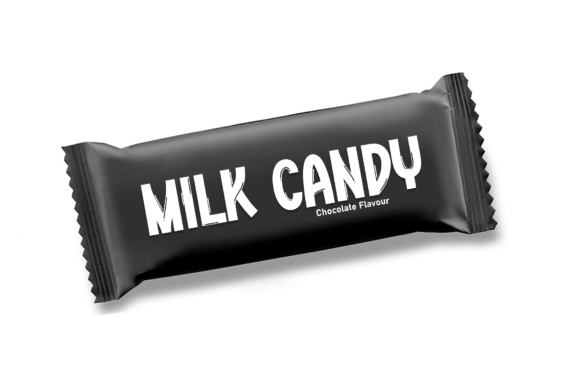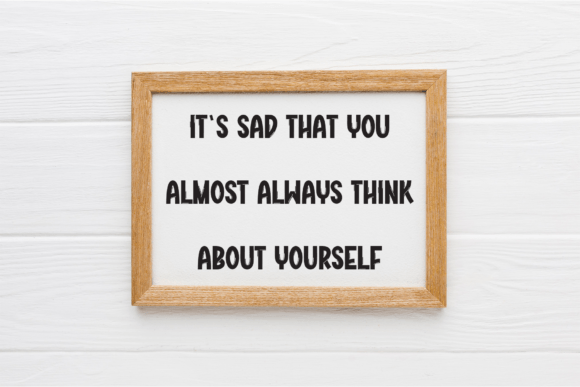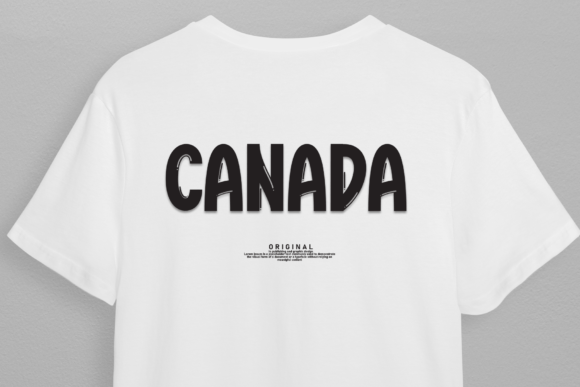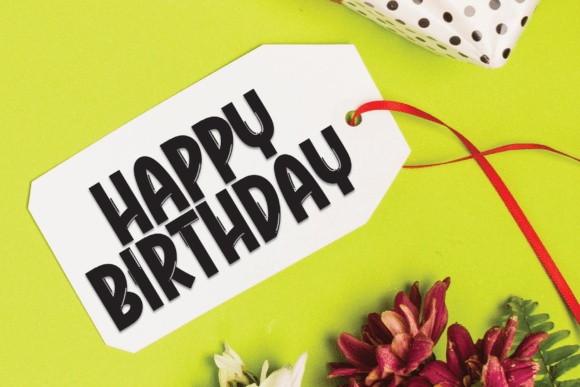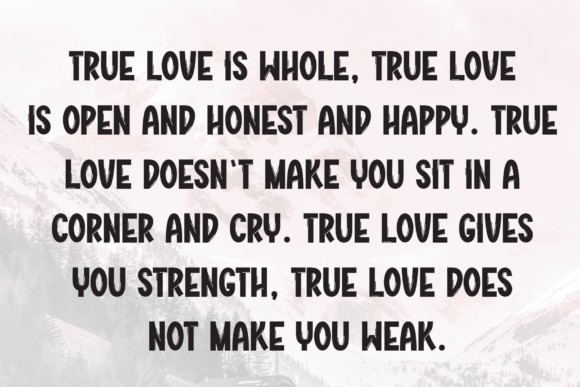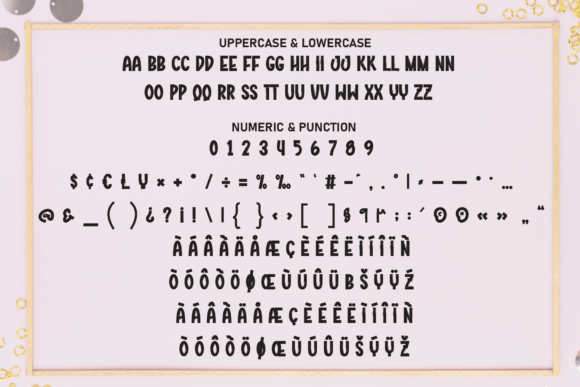
Bolder Planner Font: The Ultimate Choice for Modern Design
In the world of typography, a good font can make all the difference in conveying your message effectively. For designers and crafters looking for a neat and casual display font that embodies simplicity and readability, Bolder Planner Font is an excellent choice. With its clean lines and friendly character, this font is perfect for user interfaces, informative signage, and modern branding.
What Makes Bolder Planner Font Stand Out?
Bolder Planner Font is designed to ensure that your message stands clear and approachable, whether you’re working on a digital project or a print material. Its simplicity and readability make it an ideal choice for a wide range of applications, from mobile apps and websites to posters, flyers, and brochures.
Key Features of Bolder Planner Font
- Clean Lines: The font features clean lines that give it a modern and sleek look, making it perfect for contemporary designs.
- Friendly Character: The friendly character of Bolder Planner Font makes it approachable and engaging, ideal for designs that require a personal touch.
- High Readability: The font is designed for high readability, ensuring that your message is conveyed clearly and effectively.
- Versatility: Bolder Planner Font is versatile and can be used for both digital and print materials, making it a great addition to any designer’s toolkit.
Use Cases for Bolder Planner Font
Bolder Planner Font is suitable for a wide range of applications, including:
- User Interfaces: The font’s clean lines and friendly character make it perfect for mobile apps, websites, and other digital products.
- Informative Signage: Bolder Planner Font is ideal for posters, flyers, and brochures, ensuring that your message stands out and is easily readable.
- Modern Branding: The font’s modern and sleek look makes it perfect for branding and advertising materials, helping you to create a strong and memorable brand identity.
Benefits of Using Bolder Planner Font
Using Bolder Planner Font in your designs offers several benefits, including:
- Improved Readability: The font’s high readability ensures that your message is conveyed clearly and effectively.
- Enhanced Aesthetics: The font’s clean lines and friendly character give your designs a modern and sleek look.
- Increased Versatility: Bolder Planner Font can be used for both digital and print materials, making it a great addition to any designer’s toolkit.
Tips for Using Bolder Planner Font
To get the most out of Bolder Planner Font, consider the following tips:
- Use it for Headings: Bolder Planner Font is perfect for headings and titles, where its clean lines and friendly character can make a big impact.
- Pair it with Other Fonts: Experiment with pairing Bolder Planner Font with other fonts to create a unique and visually appealing design.
- Adjust Font Size: Adjust the font size to suit your design needs, ensuring that your message is conveyed clearly and effectively.
Bolder Planner Font is a versatile and modern display font that embodies simplicity and readability. With its clean lines and friendly character, it’s perfect for user interfaces, informative signage, and modern branding. Whether you’re working on a digital project or a print material, Bolder Planner Font ensures that your message stands clear and approachable. By incorporating this font into your designs, you can improve readability, enhance aesthetics, and increase versatility.